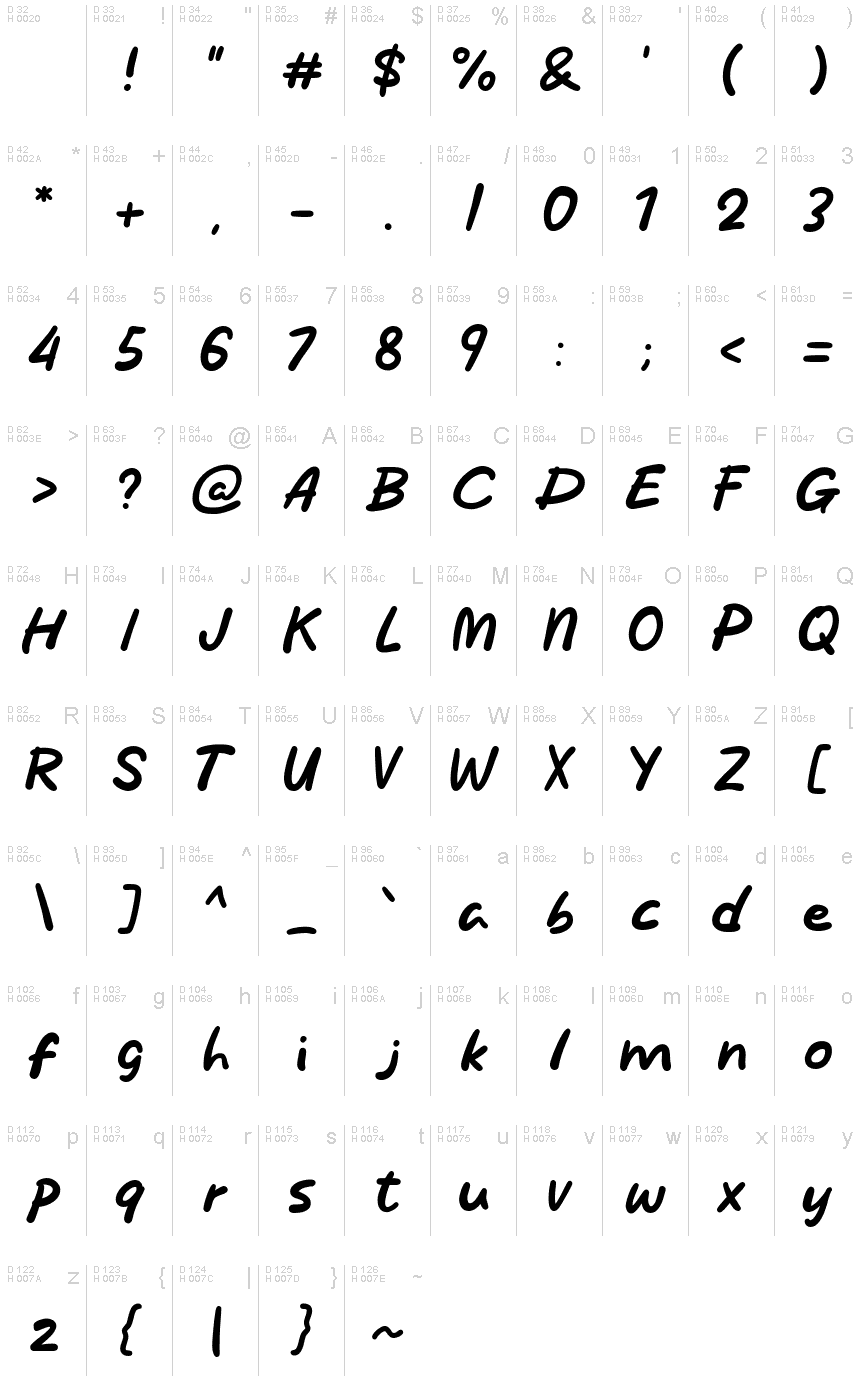
Chatnow
Chatnow, a delightful handwritten font by Khurasan, brings an element of spontaneity and playfulness to any project it graces.
With its whimsical curves and lively strokes, this font injects a sense of joy into children's book illustrations, greeting cards, and party invitations. Its fun-loving nature also makes it an excellent choice for social media graphics, adding personality to posts and stories. Whether you're designing a vibrant logo or creating eye-catching posters for events, Chatnow is the perfect font to infuse your work with a lighthearted charm that captivates audiences.